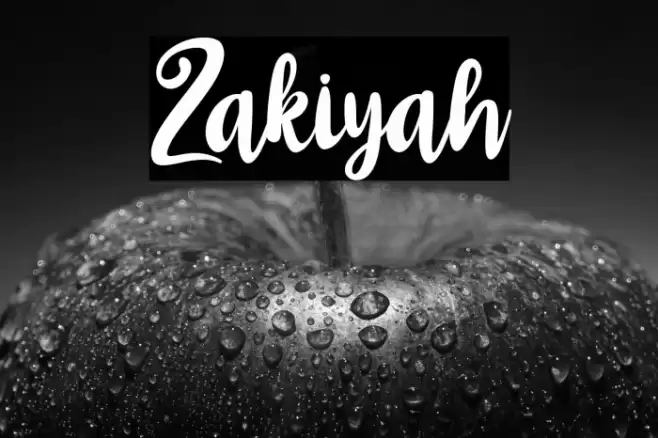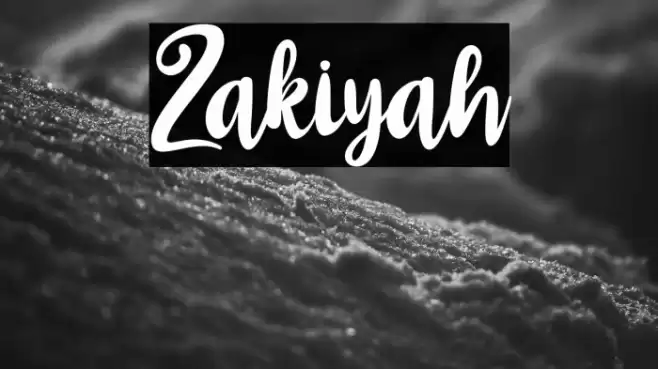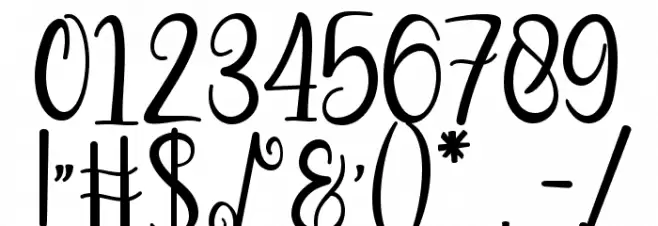
Zakiyah Font
Zakiyah Description
This font features a lively and expressive script style, characterized by its flowing, cursive letterforms. The uppercase letters are bold and dynamic, with sweeping curves and loops that give a sense of movement. The lowercase letters maintain a consistent style, with rounded edges and a playful, informal appearance. The numerals are equally expressive, with a slight slant and a whimsical touch. Special characters are designed to match the overall aesthetic, adding to the font's cohesive look. This font is perfect for projects that require a personal, handwritten feel.
A lively, expressive script font with bold, cursive letterforms from Uncategorized fonts.